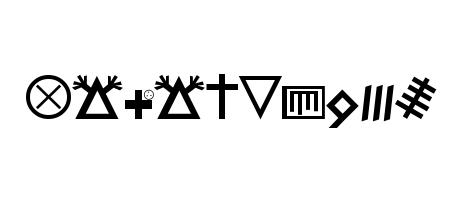
Hobo Signs
By Matias Romero
Hobo Signs: A cryptic alphabet whispered on the wind, a language of stark symbols etched in charcoal on boxcar walls. Each glyph, a terse telegram of survival, hardship, and fleeting hope. A cross, a triangle, a barred gate – these are not mere letters but emblems of a nomadic existence, a visual shorthand for a life lived on the margins.